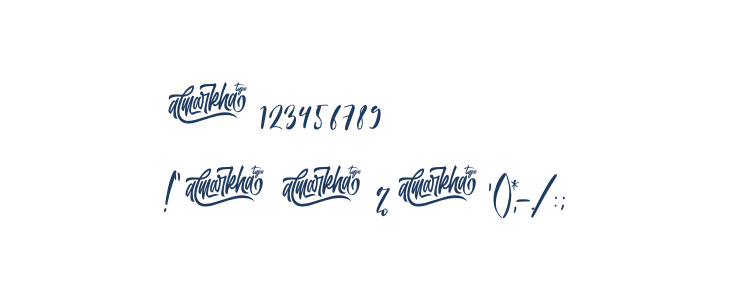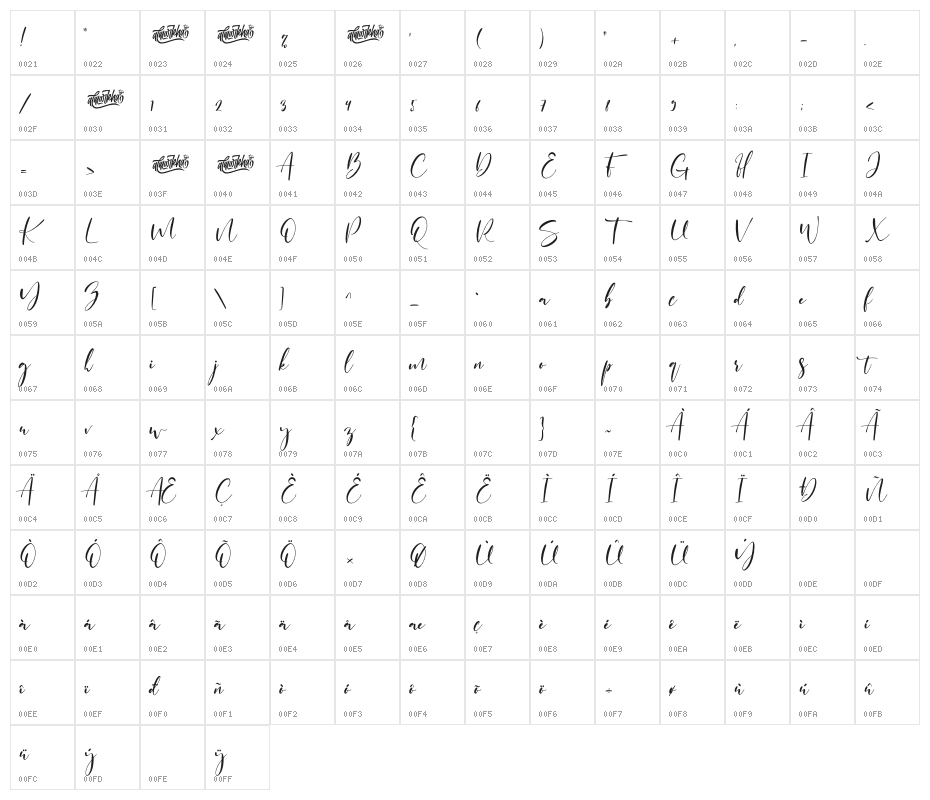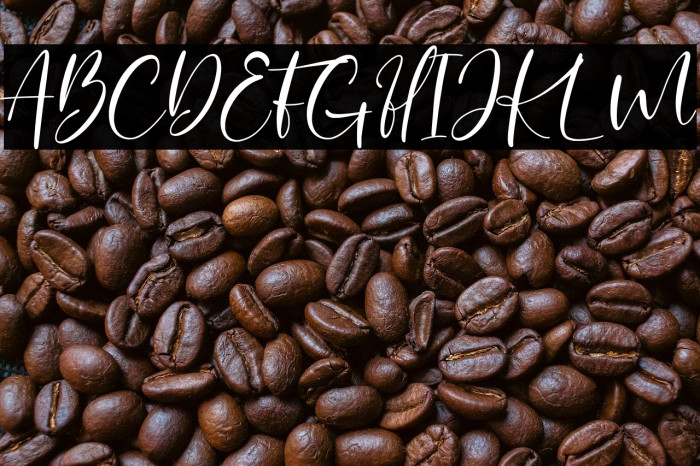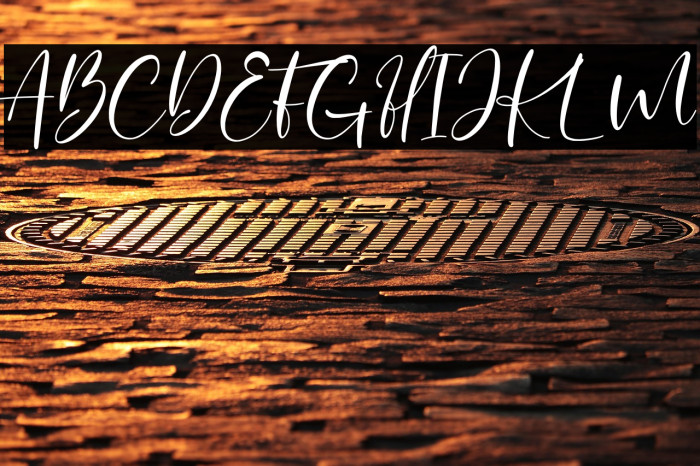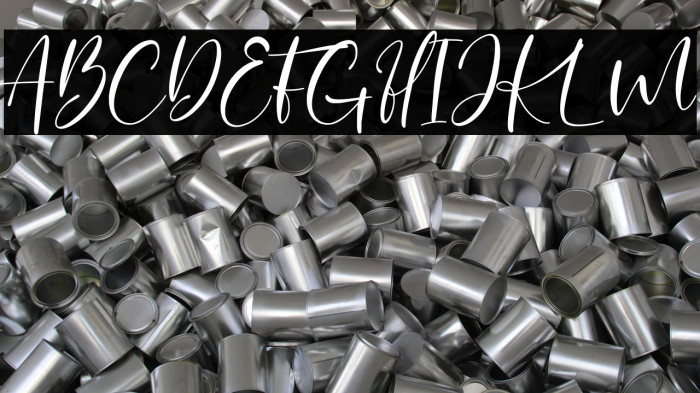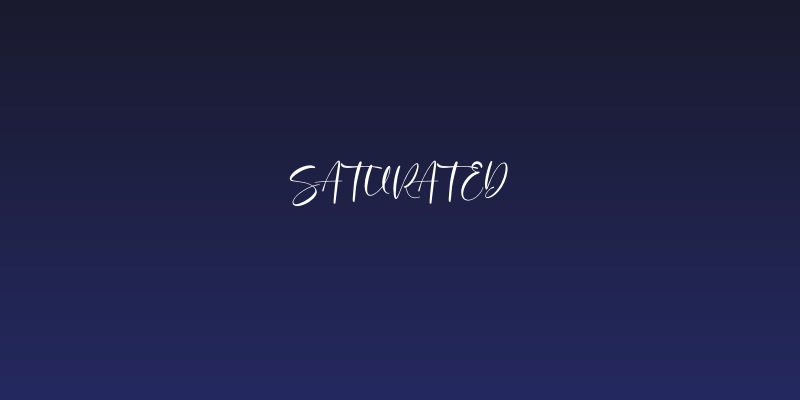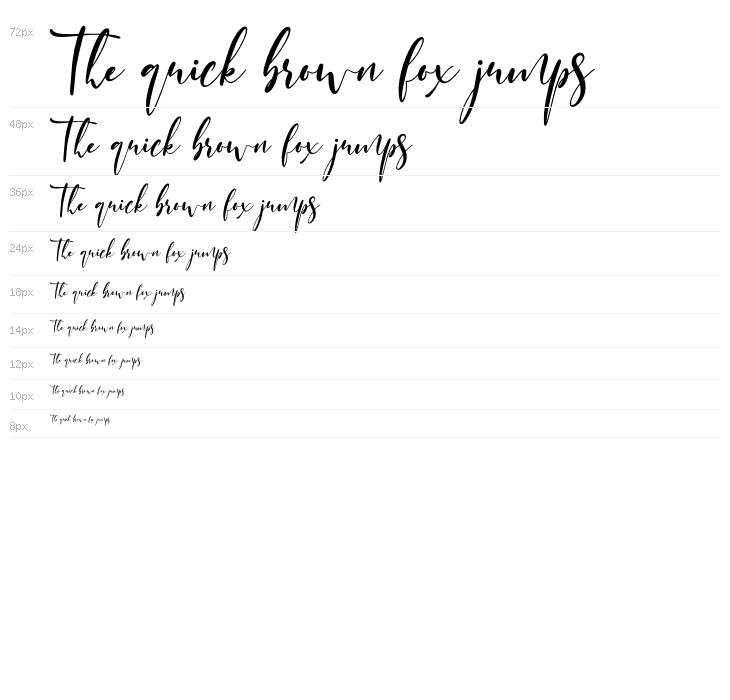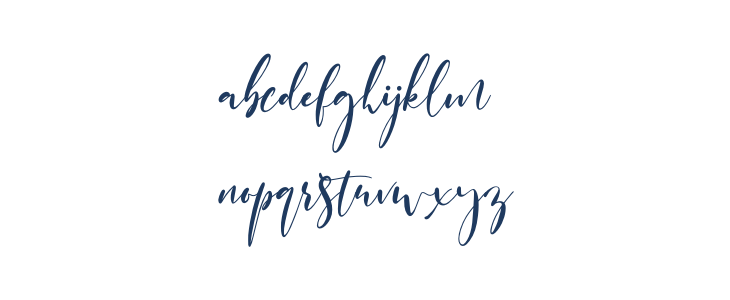
Saturated Font
Saturated Description
This font features an elegant and flowing script style, characterized by its fluid, cursive strokes and artistic flair. The uppercase letters are tall and graceful, with sweeping lines that convey a sense of movement and sophistication. The lowercase letters maintain a consistent flow, with loops and curves that enhance the font's decorative appeal. Numbers and special characters are designed with the same attention to detail, ensuring a cohesive look across all text. This font's artistic nature makes it ideal for creative projects that require a touch of elegance and personality.
| Proposed Projects | Ideal for wedding invitations, branding, greeting cards, and artistic projects. |